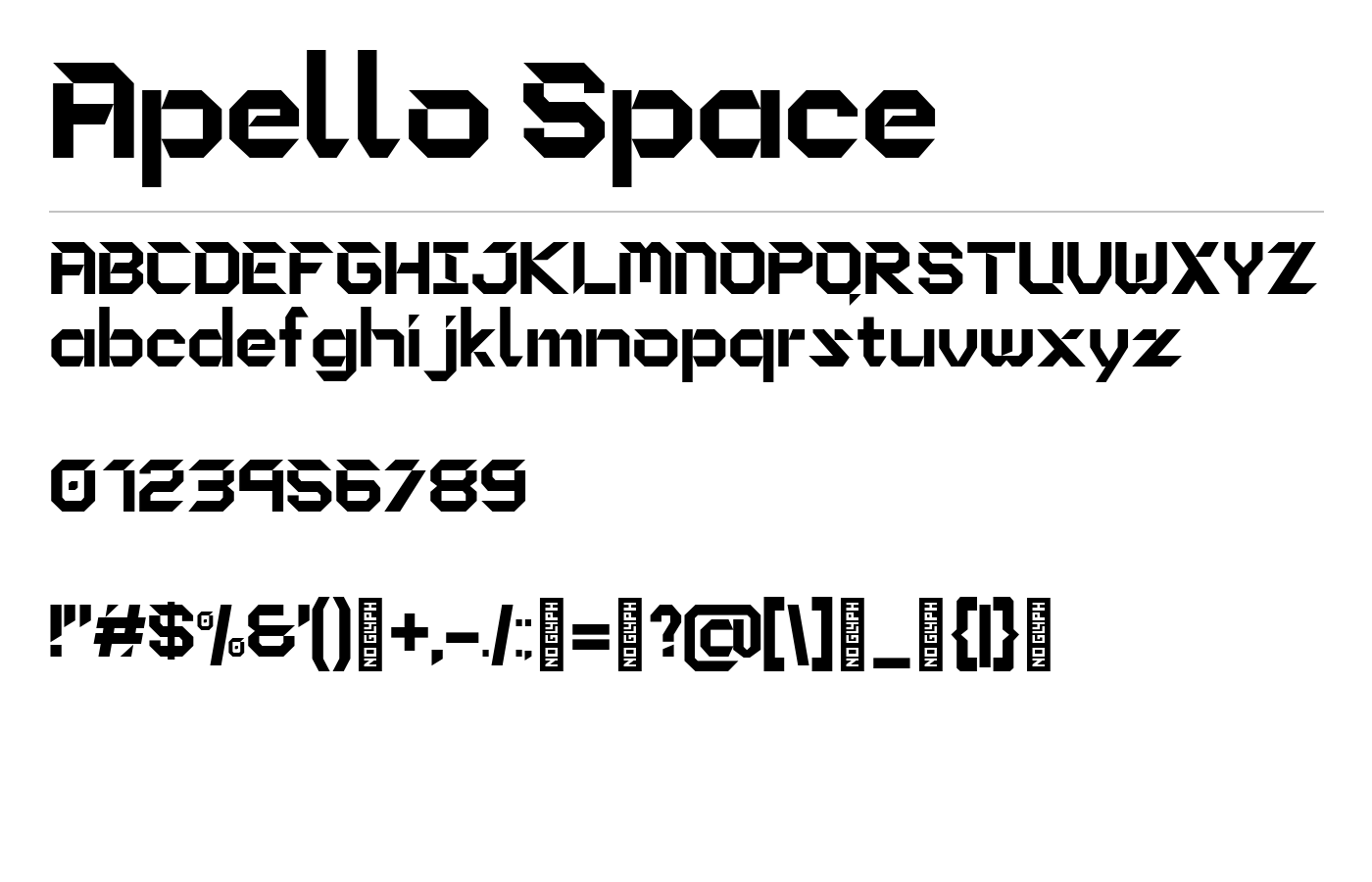
Apello Space is a bold, geometric sans serif font with a futuristic and angular design that evokes a strong sci-fi and tech vibe. Its sharp edges and unique, almost robotic letterforms make it ideal for eye-catching headlines, logos, and branding in technology, gaming, and space-themed projects. This font works best where a striking, modern, and unconventional look is needed to convey innovation and forward-thinking style.
Apello Space Font
About Apello Space Font
| Font family | Apello Space Font |
| Languages supported | Latin, Symbols, Thai |
| Designer | Apello Space |